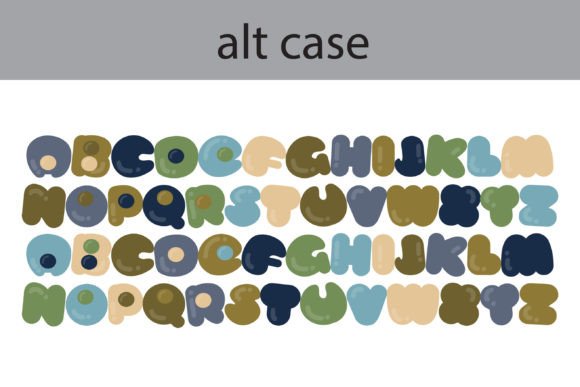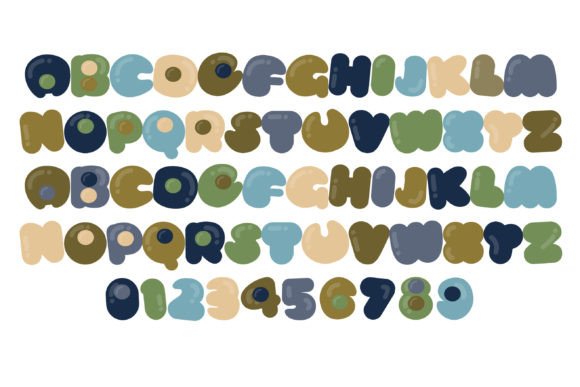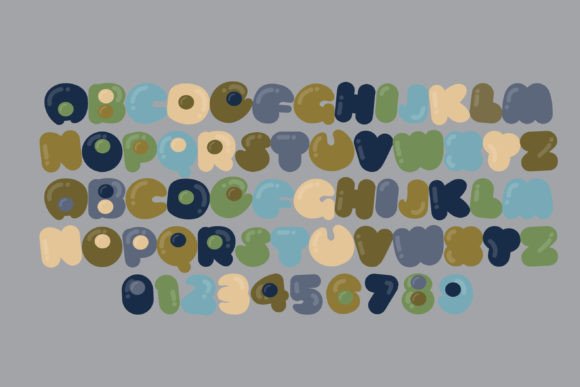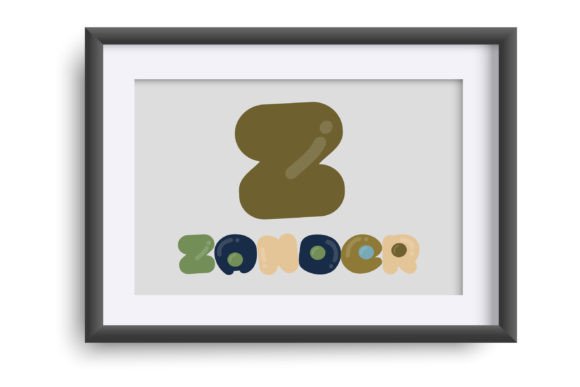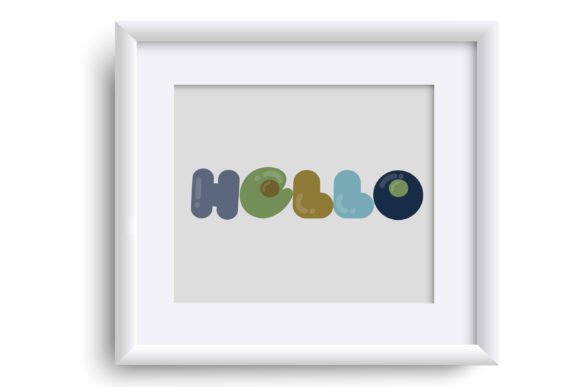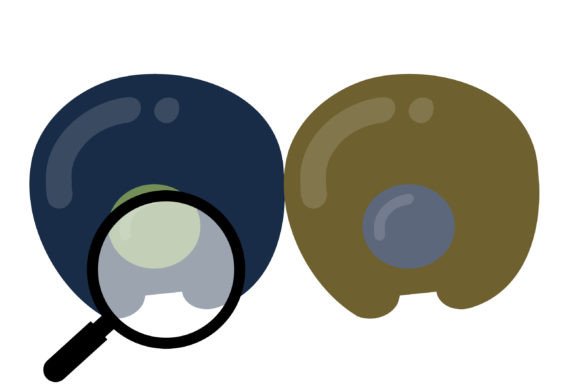
Introducing the Dad Dot Font: A Fun and Colorful Addition to Your Design Toolbox
Are you tired of using the same old fonts in your designs? Look no further than the Dad Dot Font, a full-color font that features a rounded, fun design with “dots” in a masculine color palette. This font is perfect for adding a playful touch to your titles, displays, posters, and more. In this article, we’ll take a closer look at the Dad Dot Font and explore its features, benefits, and uses.
What is the Dad Dot Font?
The Dad Dot Font is a unique and eye-catching font that features a rounded design with “dots” in a masculine color palette. The font comes in two versions: a primary case with a bold and colorful design, and an alt case with additional colors that can be accessed through your system or Silhouette’s glyph map. This font is perfect for designers and crafters who want to add a fun and playful touch to their projects.
Key Features of the Dad Dot Font
- Full-color design: The Dad Dot Font features a full-color design with a masculine color palette that is sure to grab attention.
- Rounded and fun design: The font has a rounded and fun design that is perfect for titles, displays, posters, and more.
- Alt case with additional colors: The font comes with an alt case that features additional colors that can be accessed through your system or Silhouette’s glyph map.
Tips for Using the Dad Dot Font
Here are some tips for using the Dad Dot Font in your designs:
- Use it for titles and displays: The Dad Dot Font is perfect for titles and displays, as it’s bold and eye-catching.
- Experiment with different colors: The font comes with an alt case with additional colors, so don’t be afraid to experiment and find the perfect color combination for your project.
- Pair it with other fonts: The Dad Dot Font can be paired with other fonts to create a unique and interesting design.
The Dad Dot Font is a fun and colorful addition to any design toolbox. With its rounded and fun design, masculine color palette, and compatibility with Silhouette Studio, this font is perfect for designers and crafters who want to add a playful touch to their projects. Whether you’re creating titles, displays, posters, or more, the Dad Dot Font is sure to grab attention and make your designs stand out.